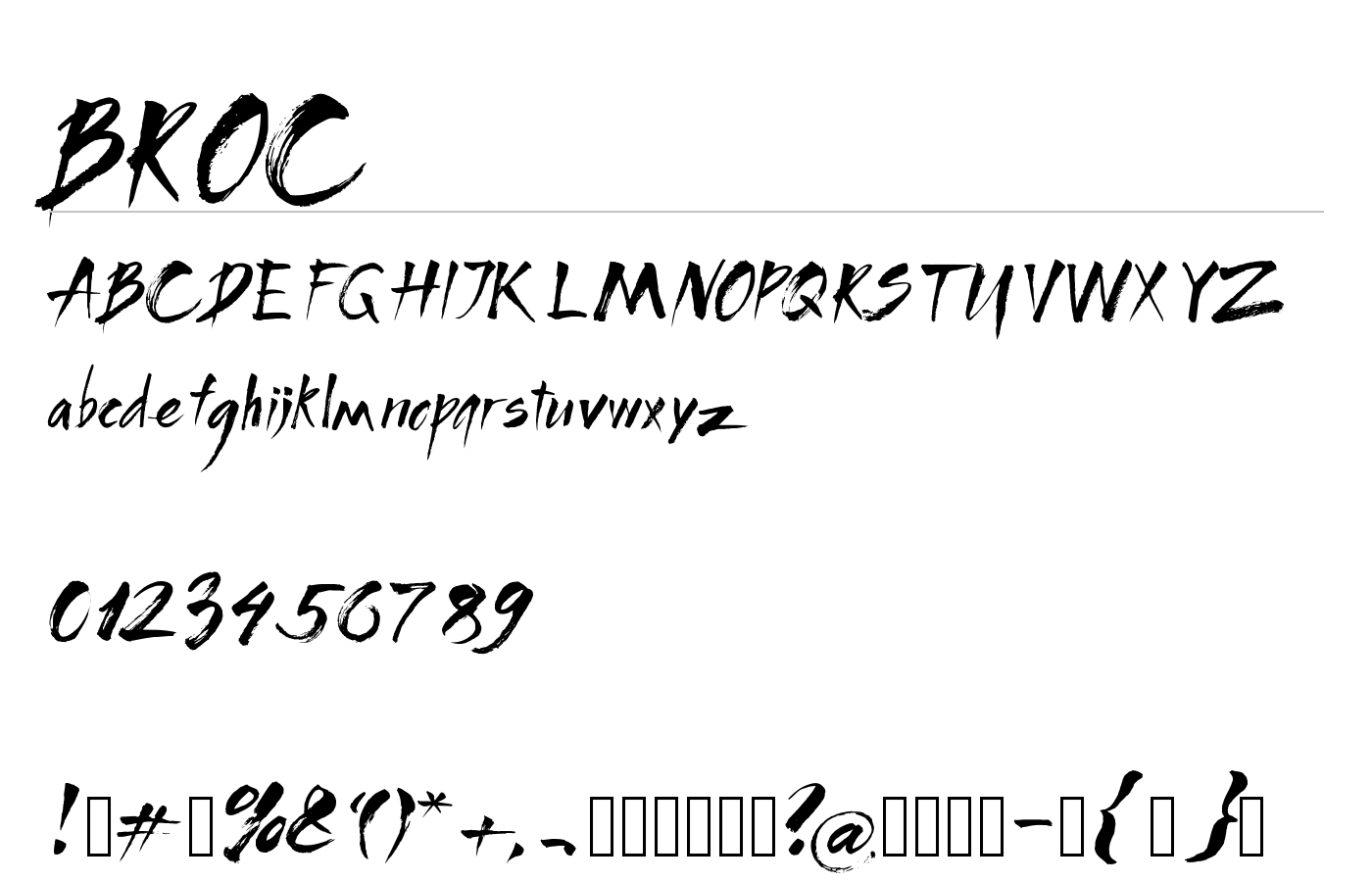
BROC is an expressive brush script font with a dynamic, textured style that feels energetic and hand-painted. Its irregular strokes and casual flair make it perfect for creative projects that want to convey a bold, artistic, and personal touch. This font works well for branding, posters, and headlines where a raw and authentic vibe is desired.
BROC Font
About BROC Font